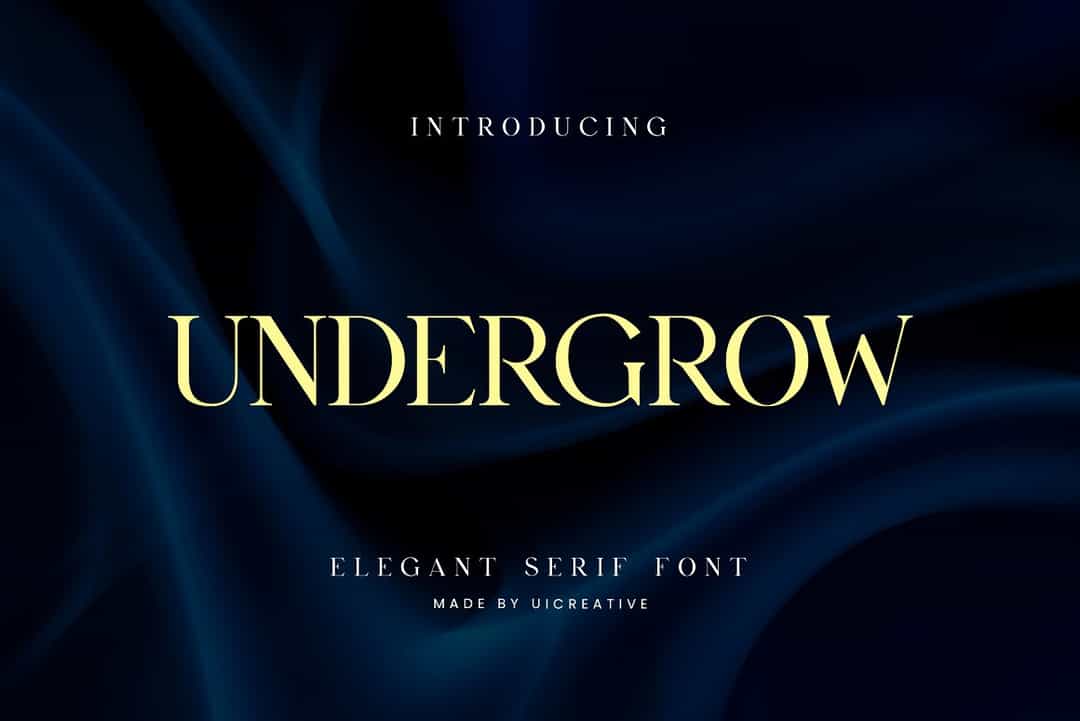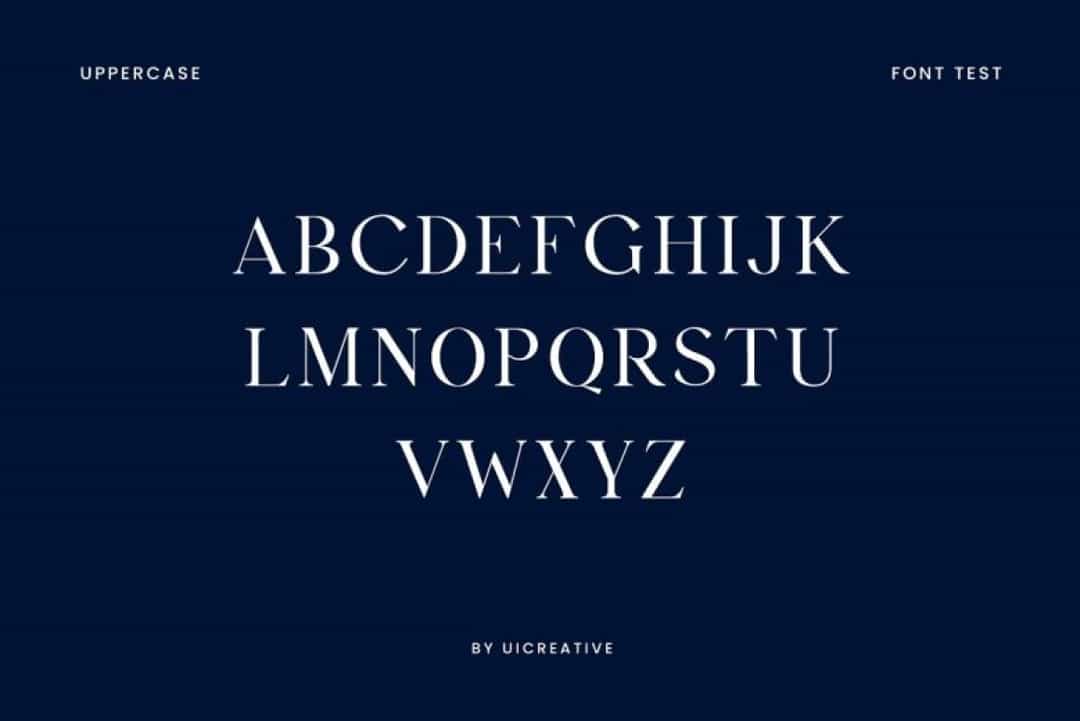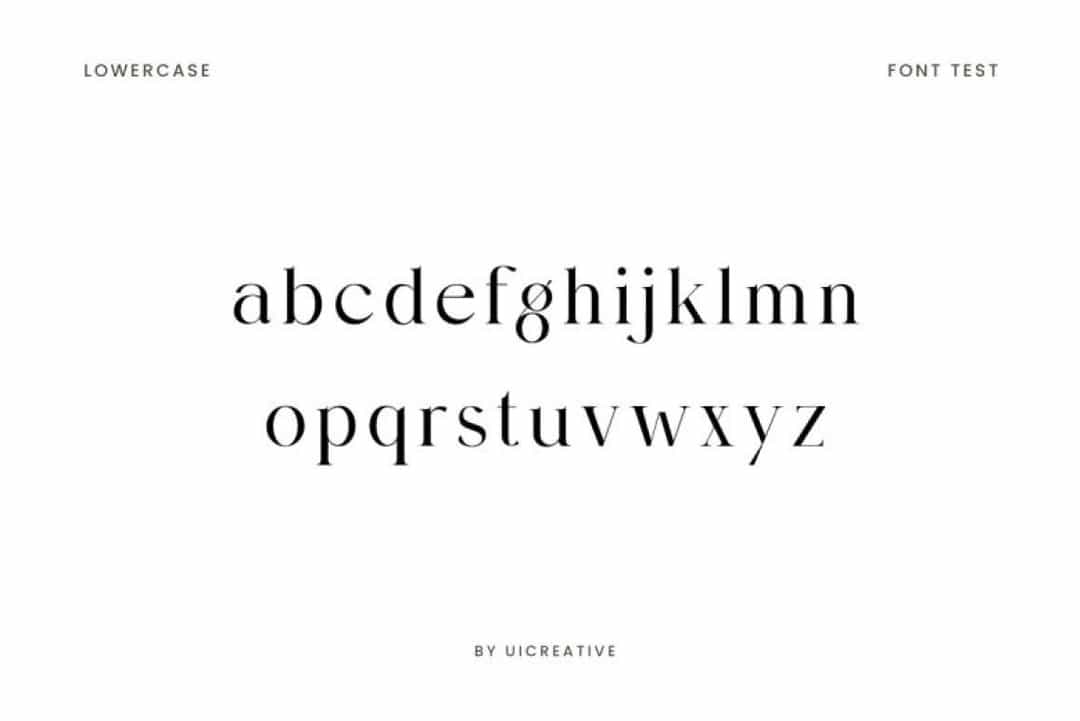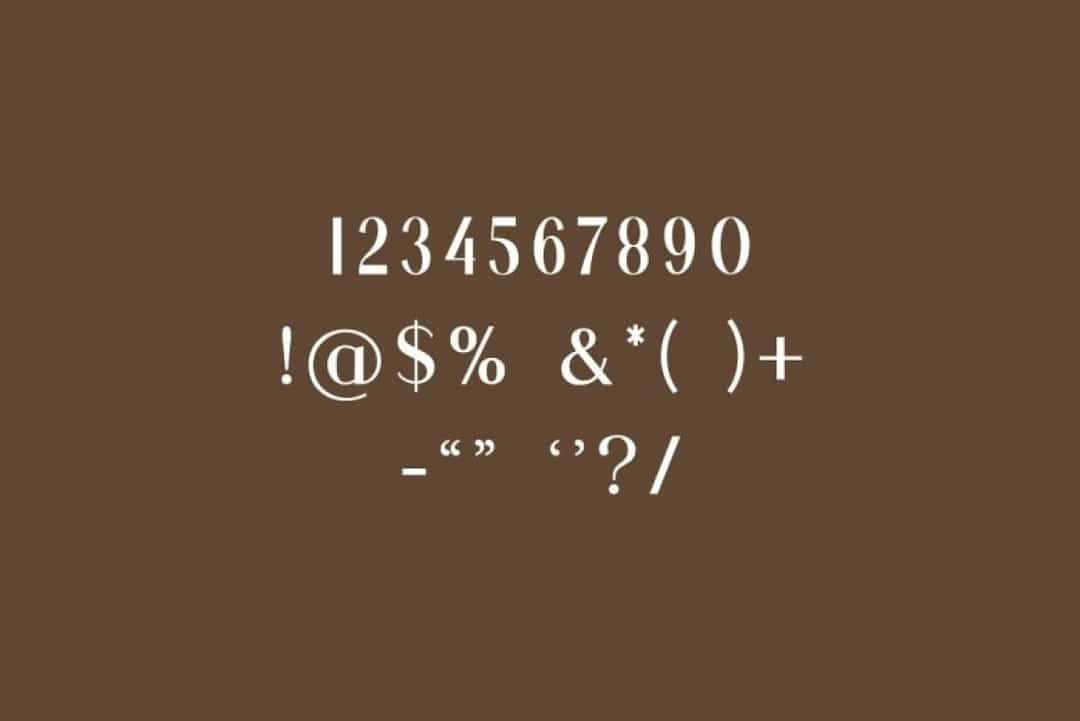
Discover Undergrow Font, part of the Serif collection—a versatile and unique font perfect for adding a personal touch to your projects. Download it for free and enjoy crafting designs with style, from invitations to social media posts. This font is available exclusively for personal use, giving you the freedom to create without limits. Unlock your creativity with Undergrow Font today!
Undergrow font is our brand new serif font which embodies elegance, classiness, and modernism – perfect for logos, signatures, stationery wedding, typography quotes magazines or book covers, headers of websites as well as clothing branding design packaging projects and much more! We hope to introduce it soon.